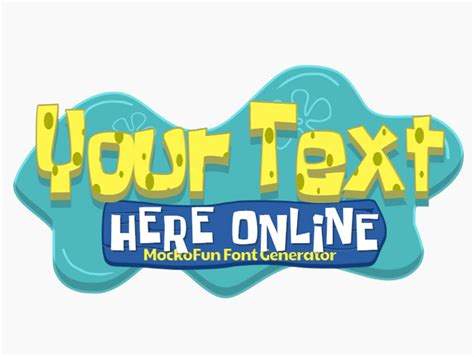
Spongebob Font Generator. Web converted direct from letters embedded in the old spongebob movie website, this is the most accurate recreation of the spongebob font you'll ever find. Spongebob fonts are fan creations of your favorite tv show, spongebob squarepants on nickelodeon.
Web users can input their desired text and instantly see it transformed into the spongebob font style. Web converted direct from letters embedded in the old spongebob movie website, this is the most accurate recreation of the spongebob font you'll ever find. Whether it's for creating fan art, designing graphics, or. Spongebob font generator & download is available free at fontbolt. Try our text generator and create cool. Spongebob fonts are fan creations of your favorite tv show, spongebob squarepants on nickelodeon. Web use the text generator below to convert your text into graphics online with spongebob squarepants font, you can then save the image or click on the embed button to get.
Web users can input their desired text and instantly see it transformed into the spongebob font style. Spongebob fonts are fan creations of your favorite tv show, spongebob squarepants on nickelodeon. Spongebob font generator & download is available free at fontbolt. Web converted direct from letters embedded in the old spongebob movie website, this is the most accurate recreation of the spongebob font you'll ever find. Whether it's for creating fan art, designing graphics, or. Web use the text generator below to convert your text into graphics online with spongebob squarepants font, you can then save the image or click on the embed button to get. Try our text generator and create cool. Web users can input their desired text and instantly see it transformed into the spongebob font style.